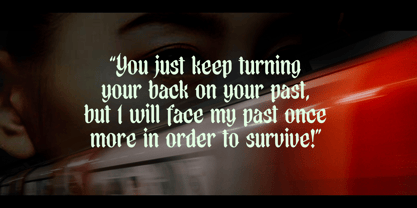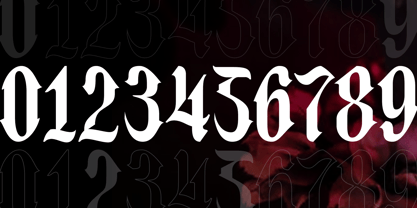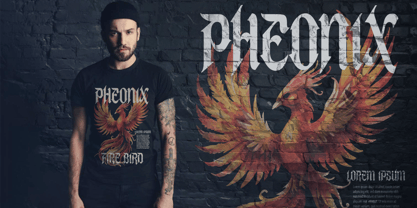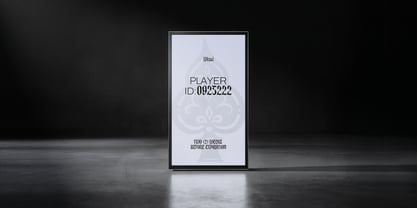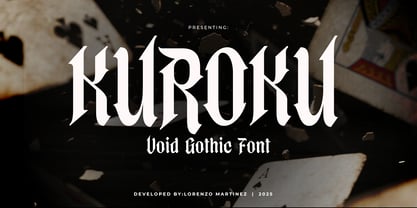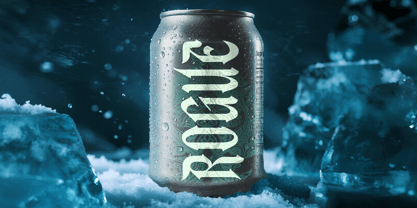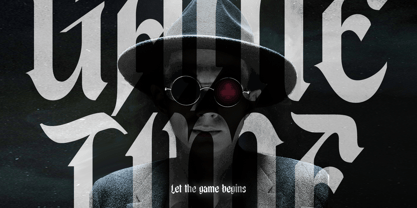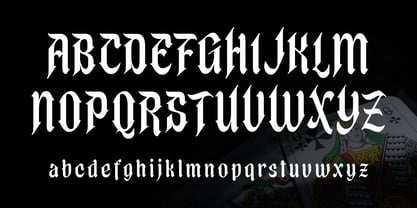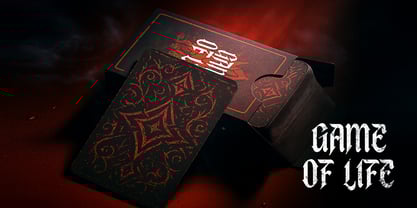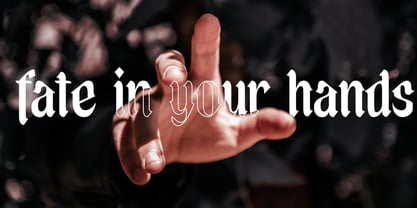
Kuroku
The Kuroku Font Family was designed by Lorenzo Gabriel Martinez and published by Lurinzu Studios. Kuroku contains 1 styles.
Kuroku – Void Gothic Typeface
Kuroku is a bold blackletter font built for impact. Dark, sharp, and dramatic, it captures the intensity of dystopian worlds and the mystery of survival. Inspired by the haunting tone of Alice in Borderland, Kuroku merges gothic tradition with a modern, cinematic edge.
With its towering strokes, razor-sharp serifs, and heavy contrast, this typeface commands attention on posters, album covers, apparel, gaming titles, and branding that demands power. Whether you’re designing for horror, metal, cyberpunk, or dark fantasy, Kuroku delivers a striking, unforgettable voice.
Features:
• Uppercase & lowercase
• Numbers & punctuation
• Strong gothic and medieval influence
• Perfect for logos, posters, games, music, and cinematic design
Bring dark energy and gothic elegance to your work with Kuroku – Void Gothic.